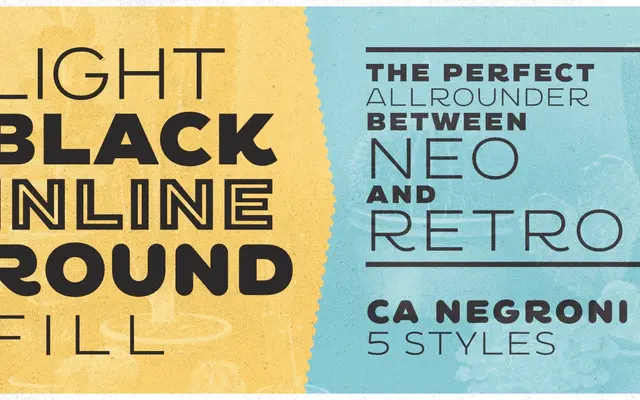
CA Negroni
Cape Arcona · Stefan Claudius
A heavy display typeface inspired by the hand-drawn advertising lettering of Wilhelm Deffke, bridging early 20th-century graphic vernacular with contemporary use.
Drawn in tribute to Wilhelm Deffke, a pioneer of German graphic design whose hand-lettered advertising work produced striking and unconventional forms, this typeface channels that atmosphere while stripping out distracting irregularities. Five styles span Light, Black, Round, Inline and Fill, with two stylistic sets offering alternative letterforms that shift the tone between playful and formal. Central European language support extends its reach beyond Western Latin.
Classified by Cape Arcona as Display; a heavy hand-lettering revival rooted in early 20th-century advertising typography, with bold, unconventional letterforms that place it firmly in the display category.